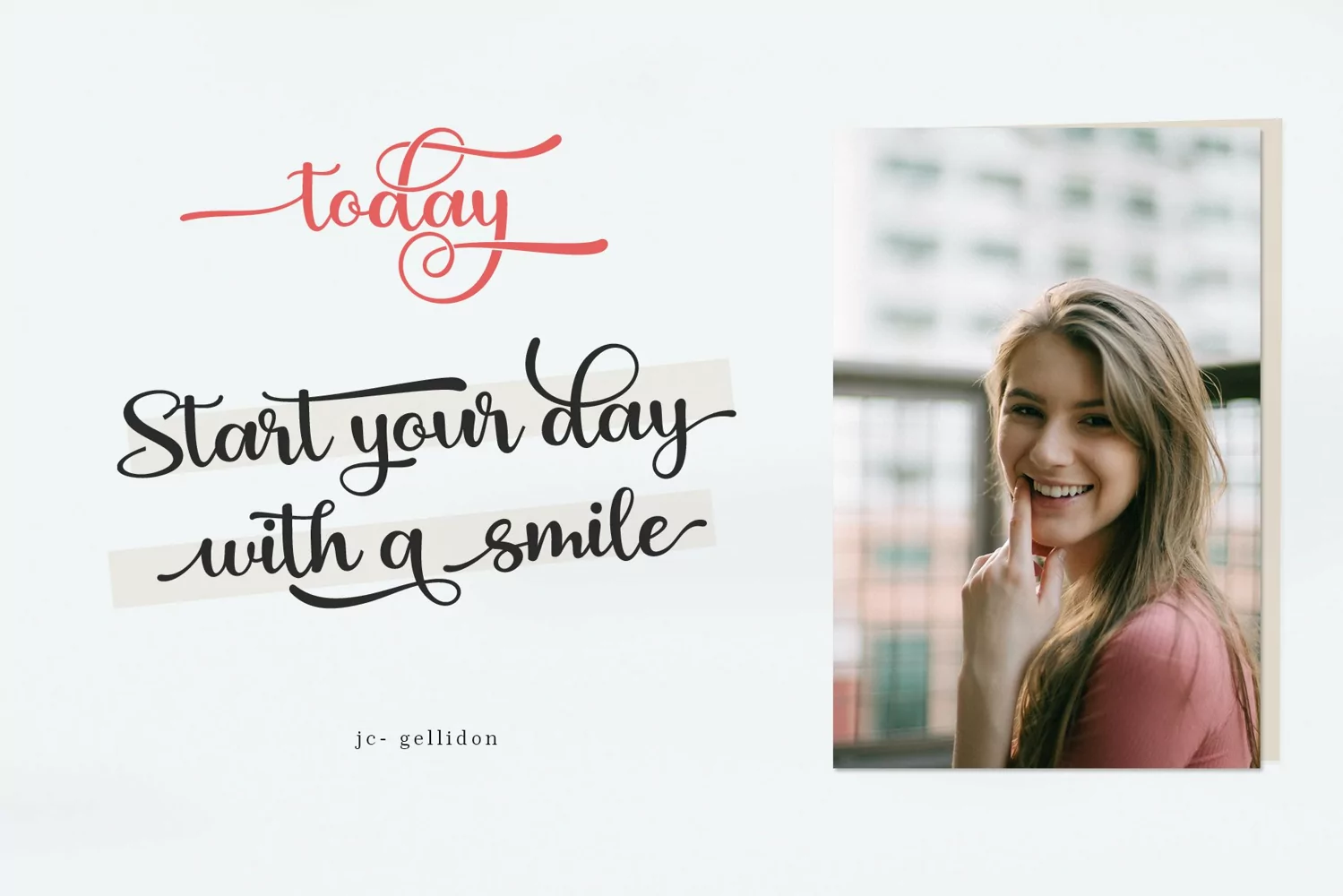
Sugesti is a bold handwritten script font and does not have many dots which we do in such a way that it looks beautiful and has characteristics in every job or craft.
It's perfect for all kinds of work you do with multiple purposes like logos, wedding invitations, titles, t-shirts, letterheads, signage, labels, news, posters, badges, etc.
OpenType features with alternative styles, ligatures, and multiple language support.